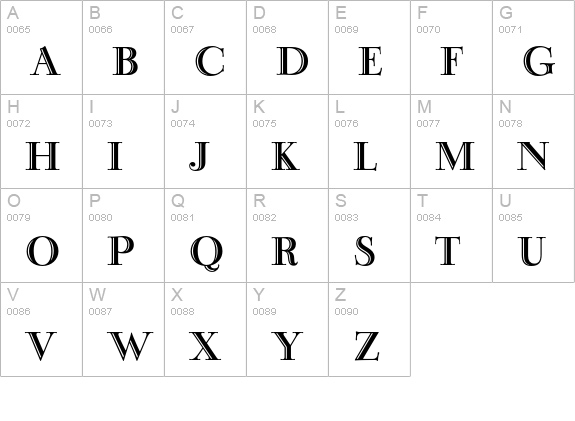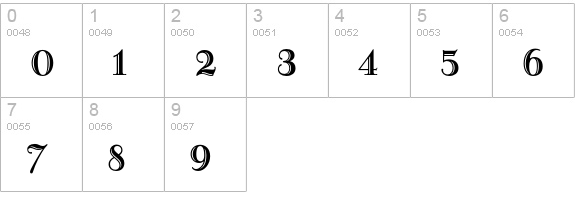
Narcissus-Roman Font Details
Narcissus-Roman font is a classic and elegant typeface that exudes sophistication and charm. Its timeless design makes it perfect for a variety of projects, from wedding invitations to branding materials. The clean lines and graceful curves of Narcissus-Roman font give any text a touch of refinement and grace. What's even better is that Narcissus-Roman font is available for free download at FontsMarket.com. This means you can easily enhance your designs with this beautiful font without having to spend a penny. Don't miss out on the opportunity to add a touch of class to your projects with Narcissus-Roman font, now freely available for download.